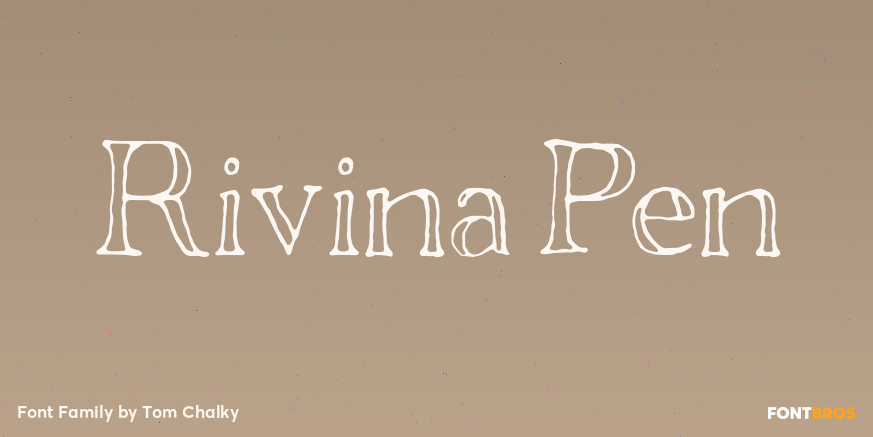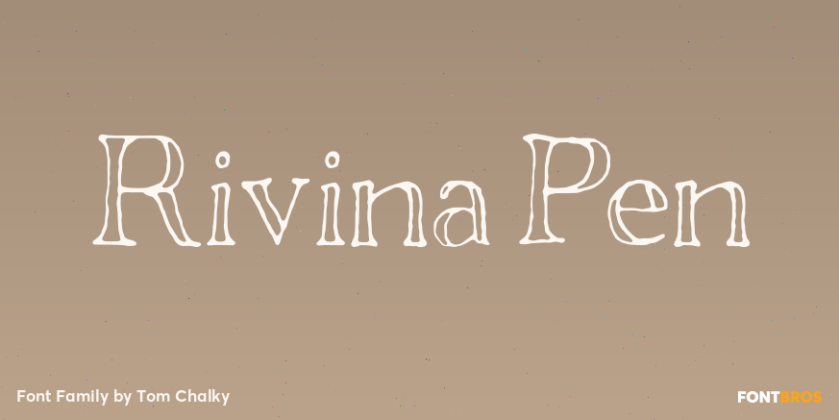
Rivina Pen
About Rivina Pen
These creative and playful hand drawn serifs were inspired by the do it yourself movement that has exploded in recent years. What with the overload of all things virtual, this change of direction was inevitable, and one that I accept with open arms.…